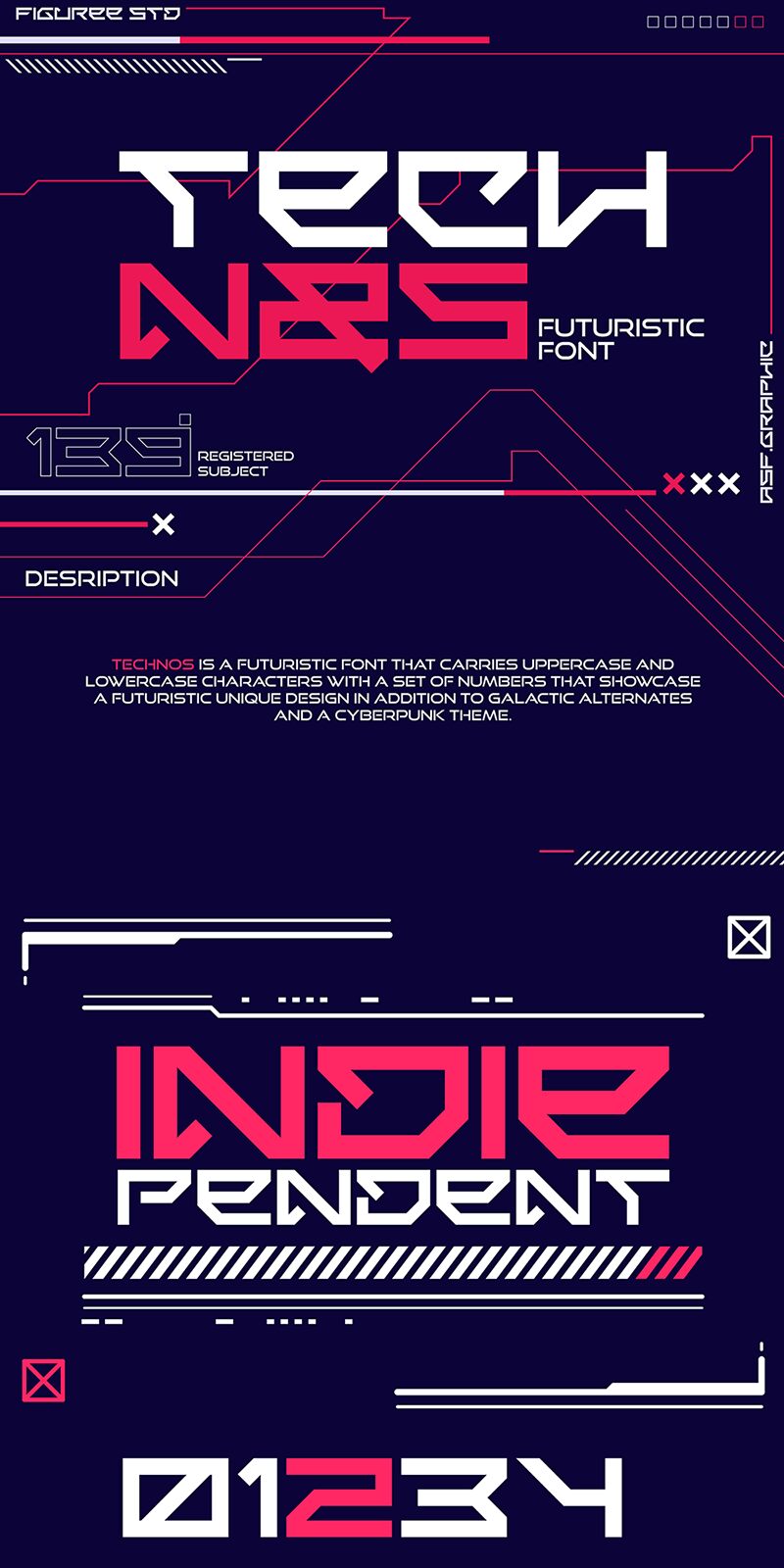
Technos, a captivating display font crafted by Figuree Studio, exudes a distinct techno-inspired charm. Its expanded, bold letterforms command attention, emanating a sense of modern dynamism and industrial allure. The sharp, angular edges and seamless geometric structures create a visually striking typographic statement, perfect for making a lasting impression in various design contexts.
This versatile font lends itself exceptionally well to a range of applications, from bold headlines and impactful logos to eye-catching branding materials and dynamic digital interfaces. Its unique character and expansive width make Technos an excellent choice for designing immersive experiences, attention-grabbing advertisements, and cutting-edge visual identities that captivate audiences.